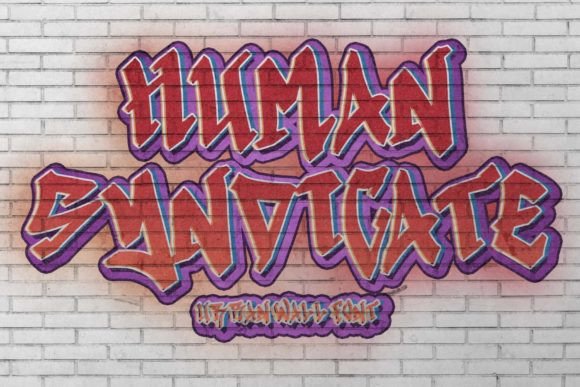
In the heart of the digital realm lies an enigmatic typographic revolution, a font that shatters boundaries and ignites your creative spirit - meet "Human Syndicate," the graffiti masterpiece that will unleash your inner urban artist.
With its bold strokes and rebellious charm, "Human Syndicate" is the perfect font for those who dare to make a statement. Its blackletter style oozes authenticity and urban grit, capturing the essence of street art and underground aesthetics. This font is not just a collection of letters; it's a gateway to a world where creativity reigns supreme.
Dive into the depths of "Human Syndicate" and discover a universe of possibilities. Its uppercase and lowercase characters dance in perfect harmony, accompanied by a captivating array of numerals and punctuation marks. Unleash your linguistic prowess with multilingual support, allowing your words to resonate across borders and cultures.
Step into the spotlight and let "Human Syndicate" elevate your designs to new heights. Whether you're crafting captivating wall art, urban street masterpieces, or logos with an edge, this font has your back. Its versatility knows no bounds, transforming banners and branding into visual symphonies. Posters and stickers come alive with an energy that leaps off the page, captivating your audience and leaving them spellbound.
Prepare to be enchanted by the magic of "Human Syndicate" as it weaves its spell on your creative endeavors. Let it transport you to the realm of Christmas and Halloween, where your designs take on a life of their own. Unleash your inner storyteller with comics that pop with personality, or let your imagination run wild with the boundless possibilities of graffiti art.
Immerse yourself in the world of "Human Syndicate" and unlock the true potential of your creativity. This font is not merely a tool; it's a conduit to a world of self-expression, a gateway to a realm where the mundane transforms into the extraordinary. Embrace the urban artistry within you and let "Human Syndicate" ignite the flame of your imagination.